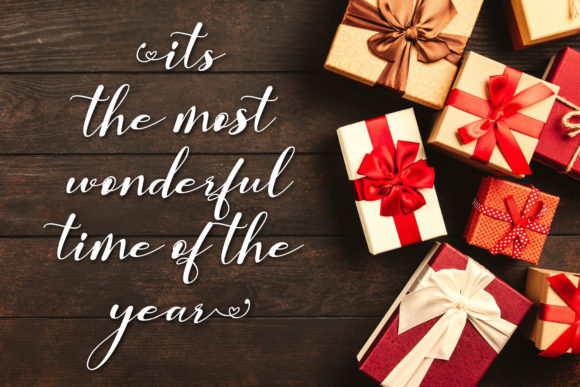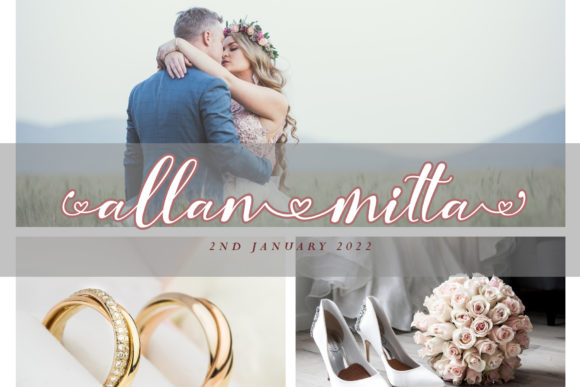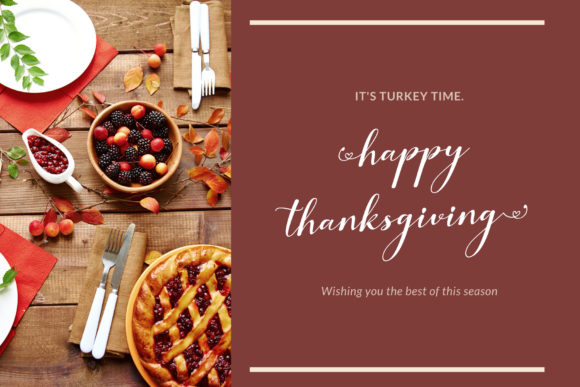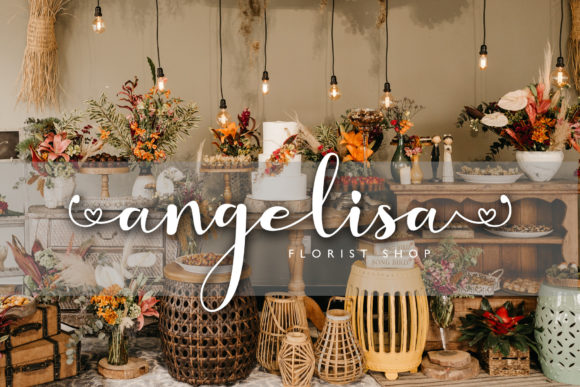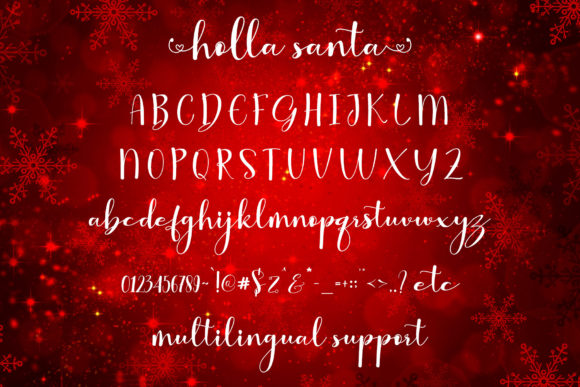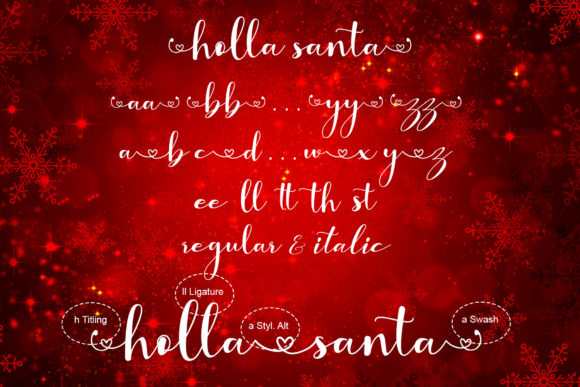
Introduction to Holla Santa Font
As a designer, have you ever been working on a project and felt like something was missing – a spark that would elevate it from good to great? For me, that moment came when I stumbled upon the Holla Santa Font. Its romantic and sweet calligraphy style instantly captured my heart, and I knew I had to learn more about it.
The Holla Santa Font is more than just a pretty face – it’s a valuable design resource that can add a touch of luxury to any project. With its PUA encoded characters, you’ll have access to all the amazing glyphs and ligatures, making it a breeze to create stunning designs. Whether you’re working on a wedding invitation, a holiday card, or a creative project with a transparent background, this font is sure to impress.
What sets the Holla Santa Font apart is its unique ability to dance along the baseline, adding a playful touch to any design. And the best part? It’s available for free download, making it an accessible high-quality design asset for designers of all levels.
Key Features of Holla Santa Font
- High-quality, unique design suitable for creative projects
- Features a large character set, making it suitable for both short and long text
- Perfect for adding a festive touch to holiday-themed projects, such as Christmas cards, invitations, and decorations
Honest Review: Holla Santa Font
I recently stumbled upon the Holla Santa Font and I must say it’s a high-quality design resource that caught my attention. As a designer, I’m always on the lookout for unique and creative fonts to add some personality to my projects.
The Holla Santa Font is perfect for any creative project that requires a fun and playful touch. It’s available for free download, which is a huge plus in my book. I love that it comes with a transparent background, making it super easy to customize and integrate into any design.
What works well: ✨ The font is incredibly versatile and can be used for a wide range of projects, from holiday cards to social media graphics. It’s also incredibly easy to read, even at smaller font sizes.
Limitations: ⚠️ The Holla Santa Font is a bit limited in its character set, so it may not be suitable for projects that require a lot of text.
Overall, I’m really impressed with the Holla Santa Font and would definitely recommend it to fellow designers. It’s a great addition to any design resource library and is sure to add some holiday cheer to any project.
Holla Santa Font
Holla Santa Font is a high-quality design resource ideal for creative projects. Its unique and playful style makes it perfect for adding a touch of festivity to your designs.
Tips for Getting the Most Out of Holla Santa Font
For the best results, use Holla Santa Font with a transparent background to create a clean and modern look. Experiment with different font sizes and colors to add visual interest to your design.
Holla Santa Font is perfect for festive designs, such as holiday cards, gift tags, and social media graphics. It’s also great for adding a playful touch to branding and marketing materials.
Alternatives to Holla Santa Font
When to use: Children’s books, advertising materials, social media graphics.